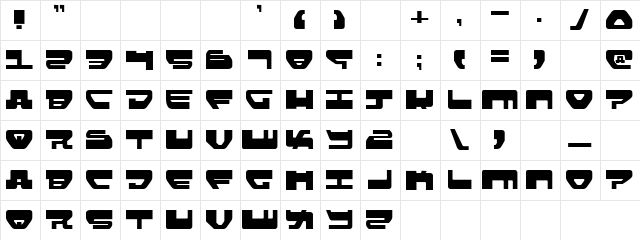
Kobbu Regular
Design Context for Kobbu Typeface
Kobbu is a composed and adaptable typeface that performs quietly and consistently across a wide range of design contexts.